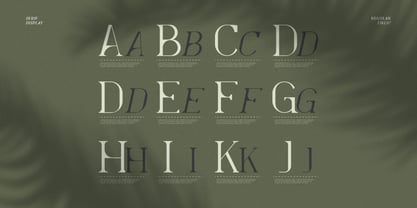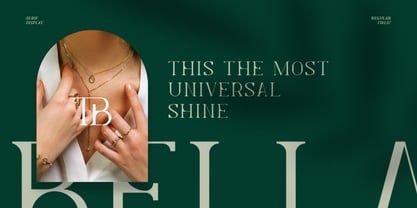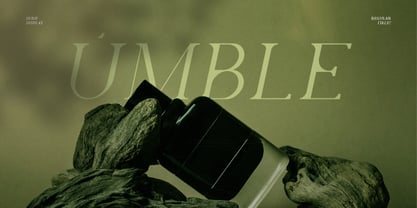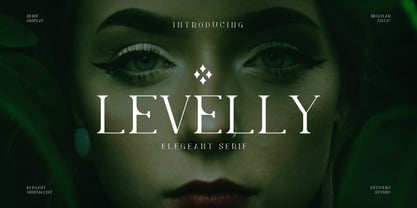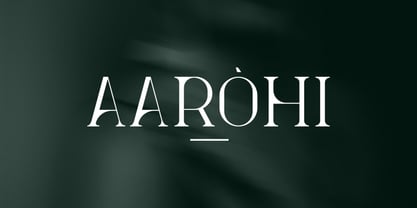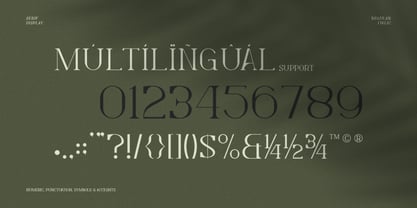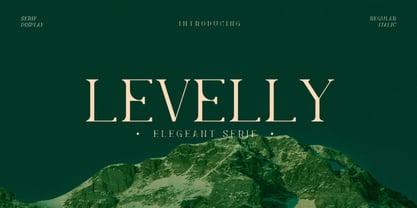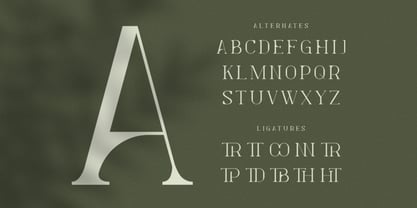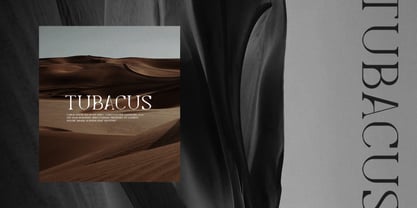
Levelly
by Artiveko
The Levelly Font Family was designed by Iwan Alwan and published by Artiveko. Levelly contains 2 styles and family package options. More about this family
Levelly is a refined serif font that radiates elegance and femininity. Designed with graceful curves, high contrast strokes, and delicate details, Levelly brings a sense of luxury and timeless beauty to every project. Its sophisticated character shapes make it perfect for branding, fashion editorials, wedding invitations, beauty packaging, and high-end logo designs.
With both uppercase and lowercase letters crafted to complement each other flawlessly, Levelly offers a harmonious visual rhythm that feels both classic and modern. Multilingual support, stylish ligatures, and beautiful alternates add versatility, allowing you to create unique, polished typographic compositions. Whether you're building a luxury brand or designing a chic magazine spread, Levelly adds a touch of class and confidence. It’s more than a font — it’s a signature of grace, charm, and refined femininity.
Designers: Iwan Alwan
Foundry: Artiveko